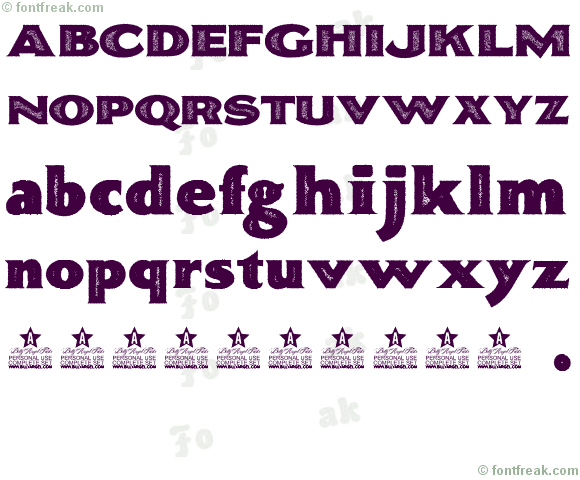
BONNEVILLE co. Personal Use
About BONNEVILLE co. Personal Use
The BONNEVILLE co. Personal Use font, created by Billy Argel Fonts, is a striking display typeface that captures attention with its bold, rugged character. This font falls within the decorative category, showcasing a unique blend of vintage charm and contemporary flair. With its thick stroke weight and noticeable contrast, BONNEVILLE co. possesses a strong presence, making it ideal for projects that require a robust visual impact.
Visually, the font features slightly irregular edges that evoke a handcrafted feel, contributing to its distinctive personality. The spacing is generously set, allowing each letter to breathe and making the text easily legible even at larger sizes. The overall appearance is both playful and authoritative, making it versatile for a range of creative applications.
This font shines in various use cases. It works beautifully for wedding invitations, where its character can elevate the romantic ambiance. It’s also perfect for movie posters, adding an element of drama and intrigue. Additionally, BONNEVILLE co. can enhance restaurant menus, giving a unique identity to the dining experience. Graphic designers and content creators will find it an excellent choice for branding projects, promotional materials, and social media graphics.
What sets BONNEVILLE co. apart is its ability to marry modern aesthetics with a nostalgic vibe, making it a standout choice for anyone looking to make a lasting impression. Whether used for personal projects or in professional settings, this font is sure to leave an impact.